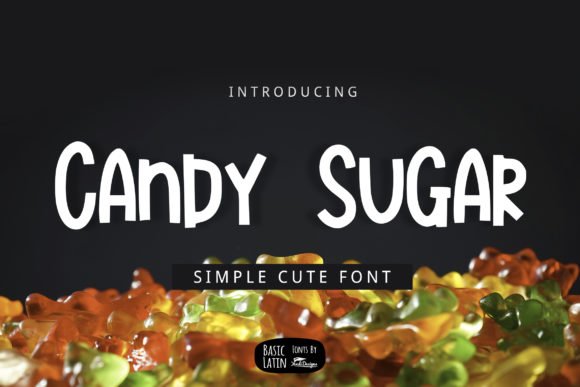
Introduction to Candy Sugar Font
Candy Sugar is a thick lettered, bold yet playful display font.
Unique and interesting, this font will become your top choice in no time .
Key Features of Candy Sugar Font
Why Choose Candy Sugar Font?
Candy Sugar Font offers exceptional quality and versatility, making it a valuable addition to your design toolkit. Whether you’re creating for personal projects or commercial use, Candy Sugar Font delivers professional results.